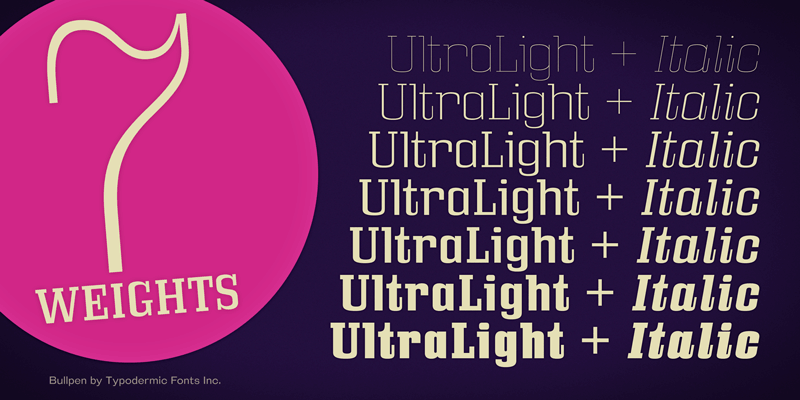
Font name: | Bullpen |
Slab serif fonts are generally macho, but Bullpen is 1,000,000 times more masculine than most slab serif fonts. Reeking with testosterone, even the lightest weights of Bullpen will make words like pantyhose, skirt and wiener burst forth with brutal manliness. Bullpen includes a Greek alphabet with is twice as strapping as the regular alphabet. In other words: 2,000,000 times more macho than non Greek slab serif fonts. Fractions and numeric ordinals are included and are also audaciously robust. These fonts include a license that allows free commercial use: sometimes referred to as a desktop license. This allows you to install the fonts on a computer and use them to create posters, web graphics, game graphics, t-shirts, videos, signs, logos and more. Read the license agreement for details. If you'd like to embed these fonts in an app, ebook, on the web or anything that's not covered by the desktop license agreement, visit the link below. You'll find distributors who offer different types of licenses or you can contact me for help. http://typodermicfonts.com/bullpen/ These free fonts are part of a larger font family. Check out the rest of the family through the link above. |